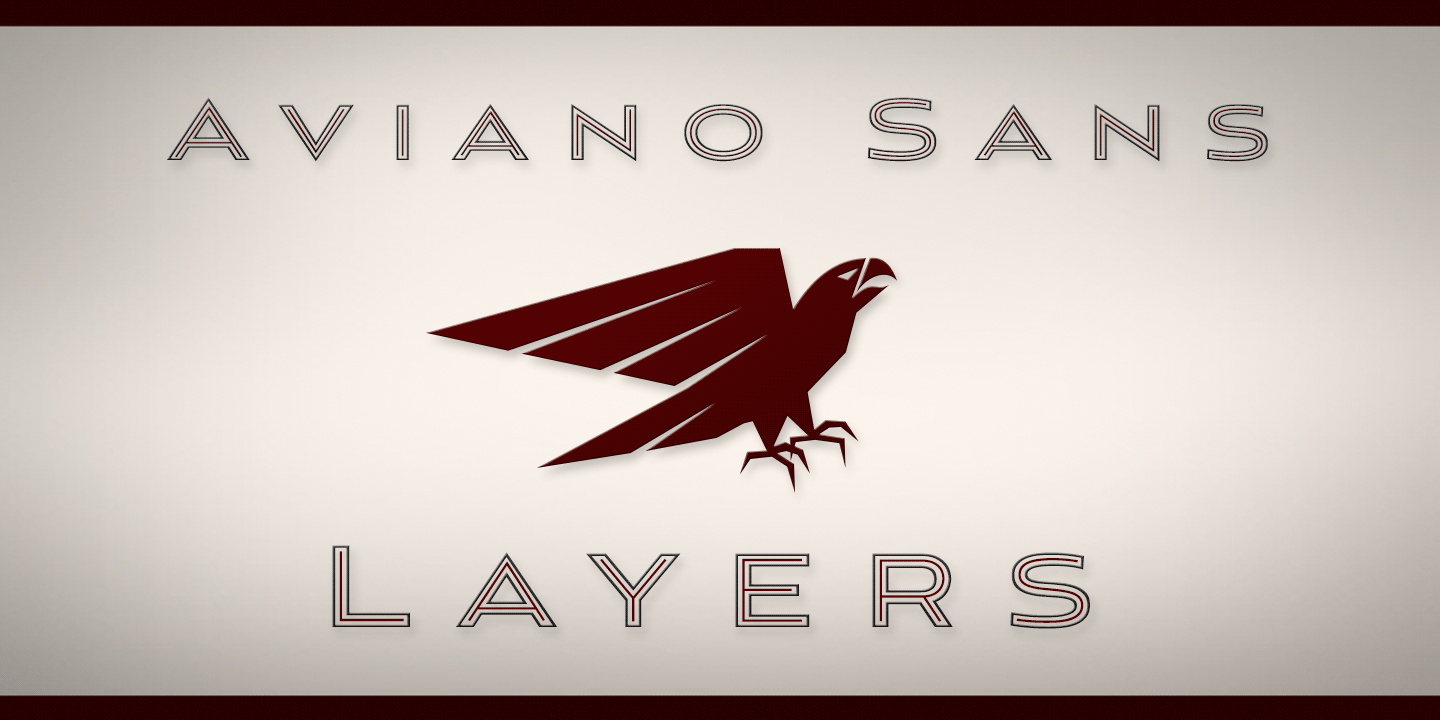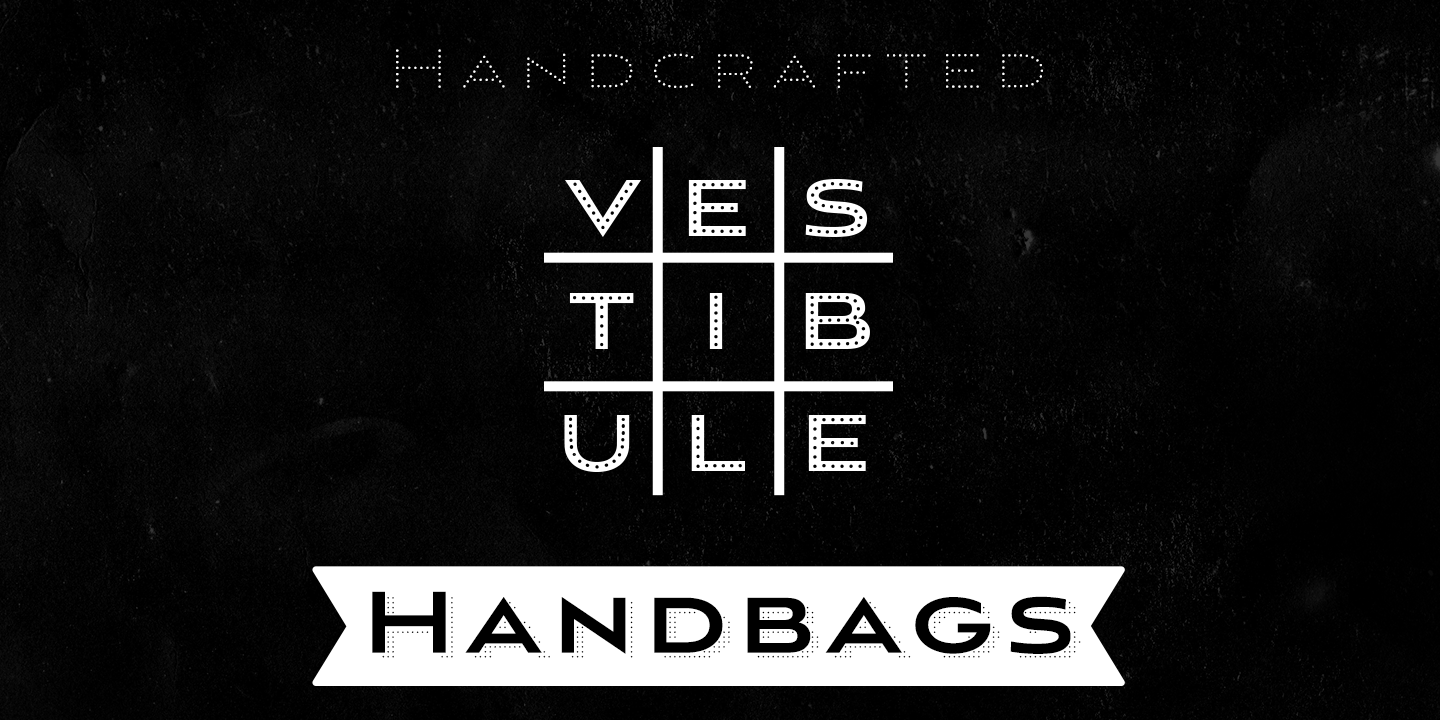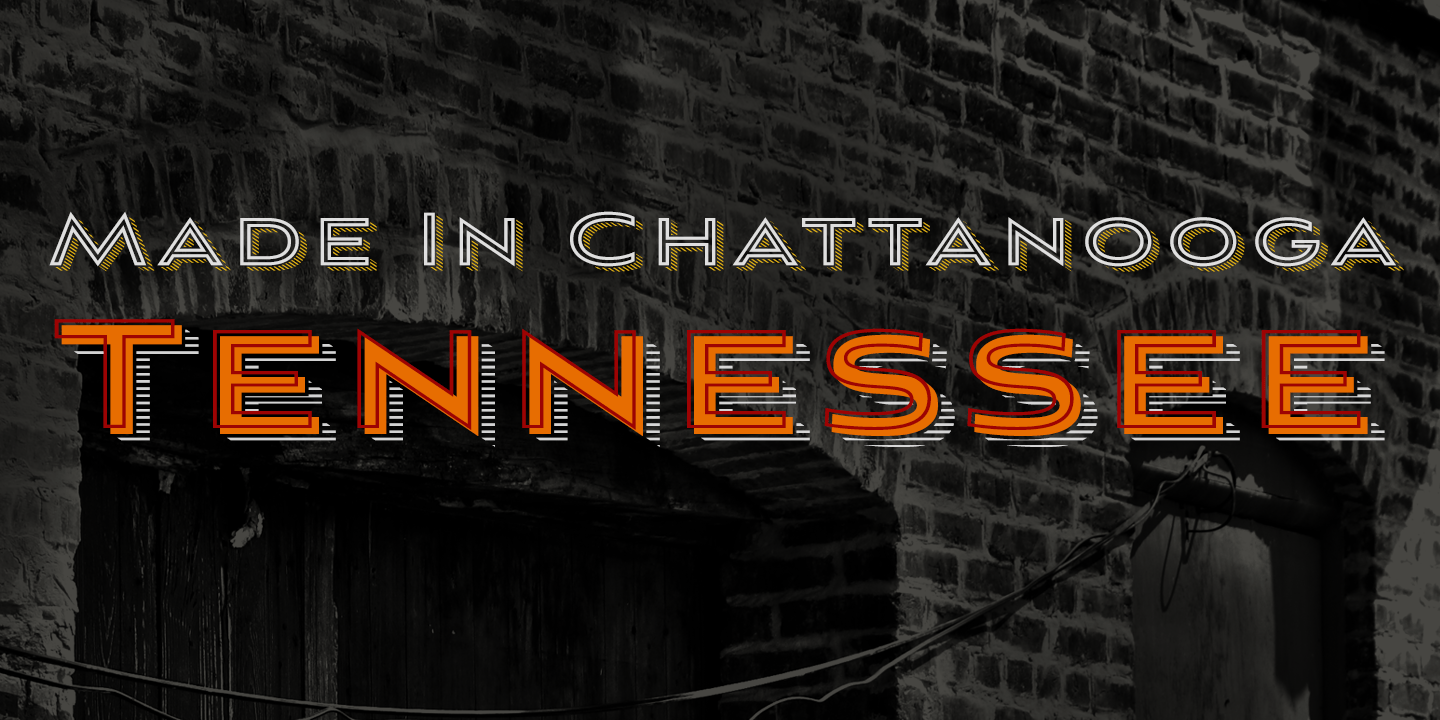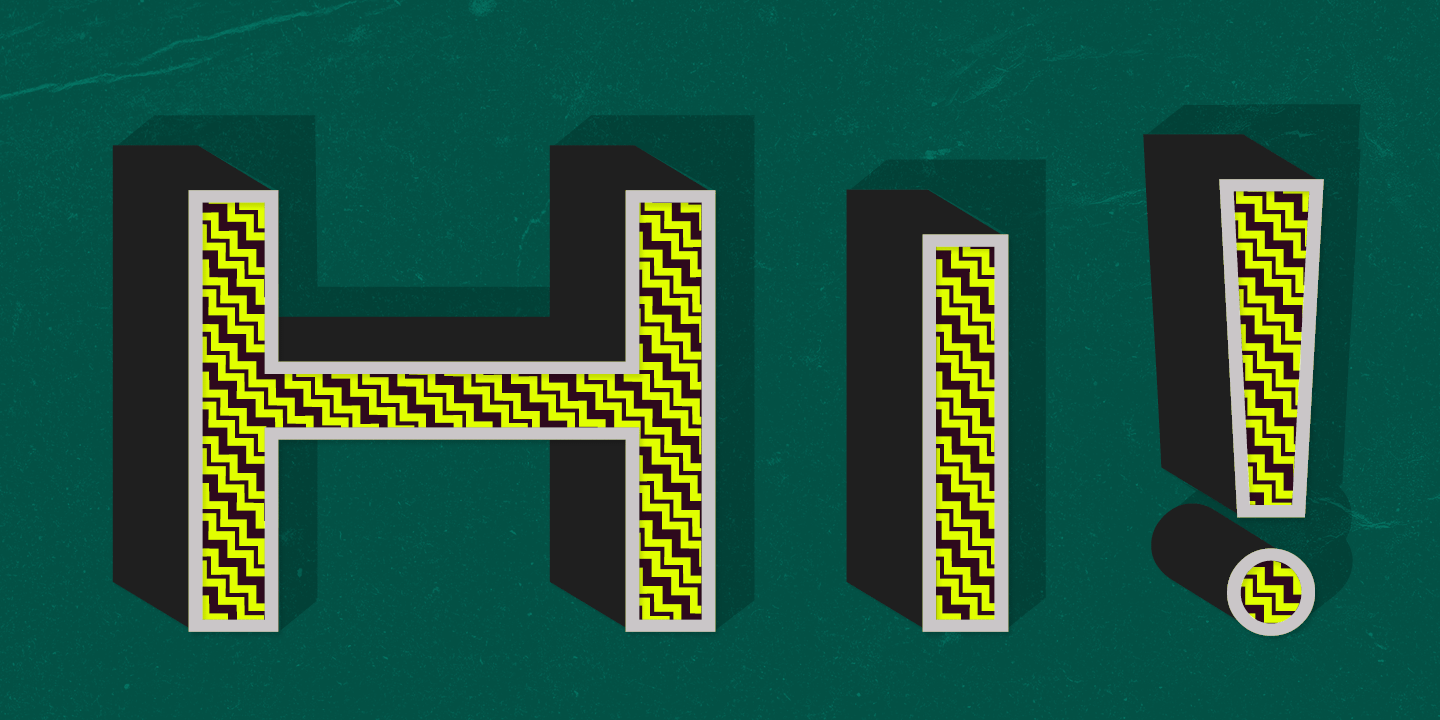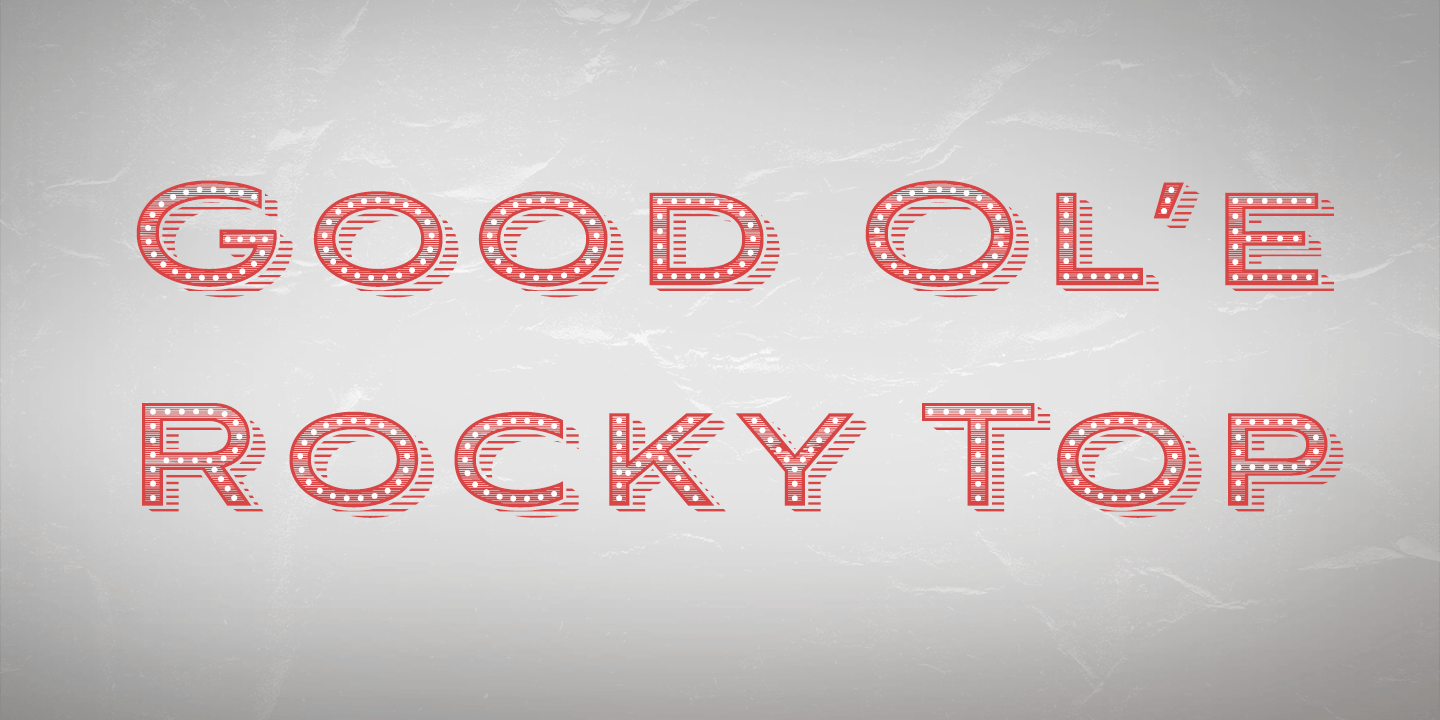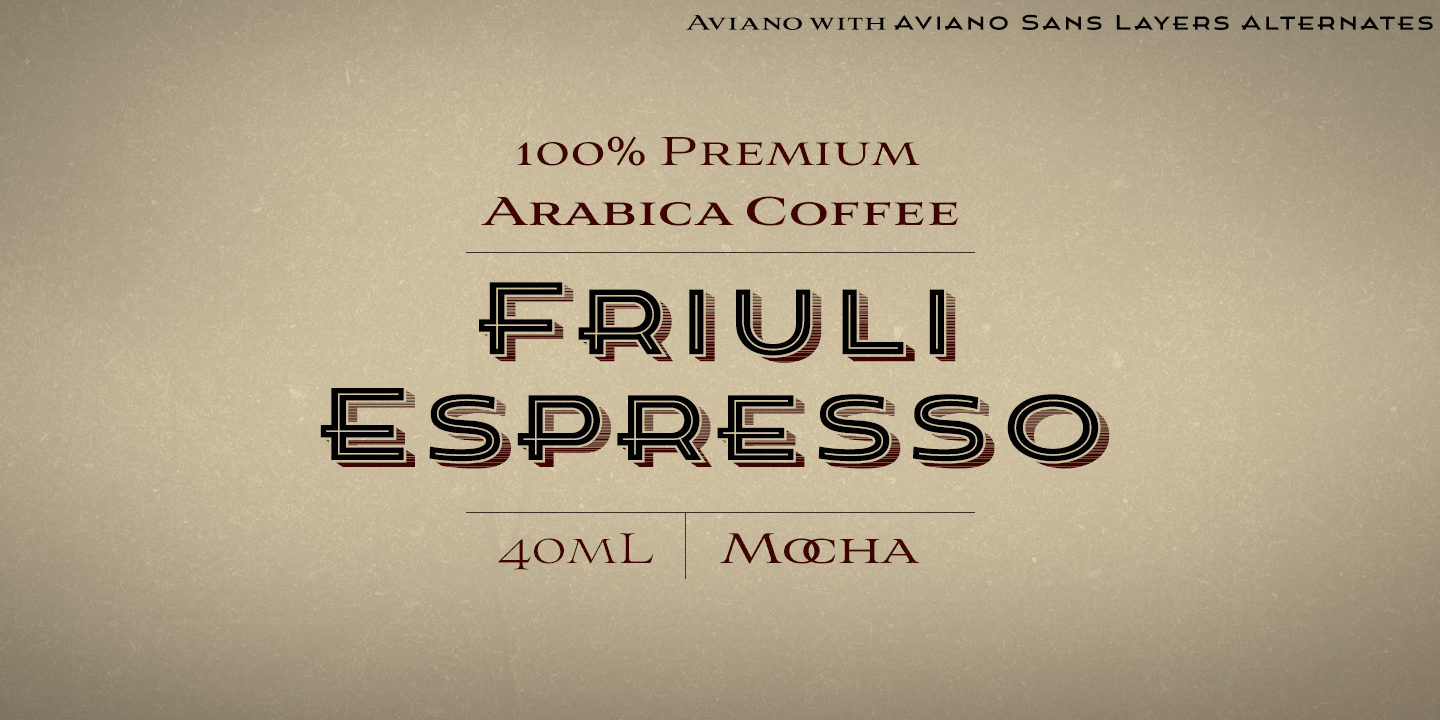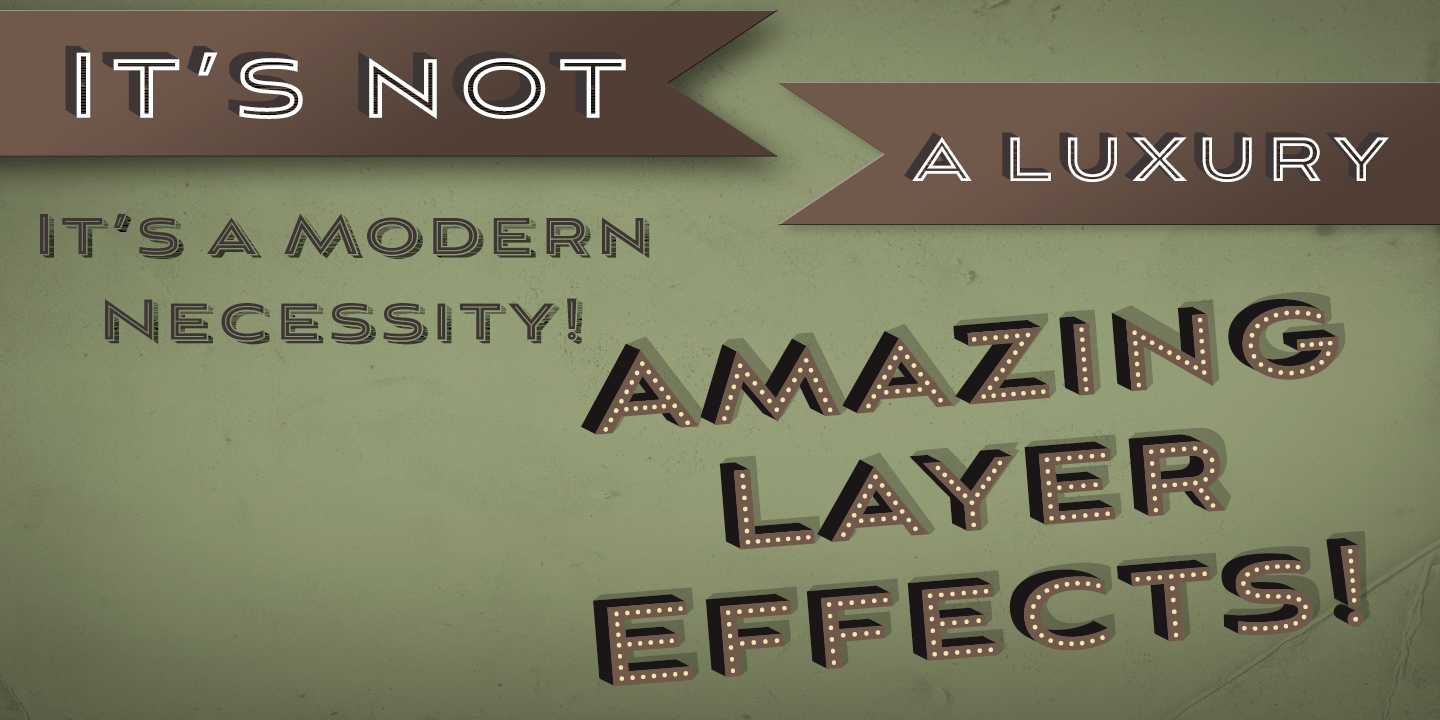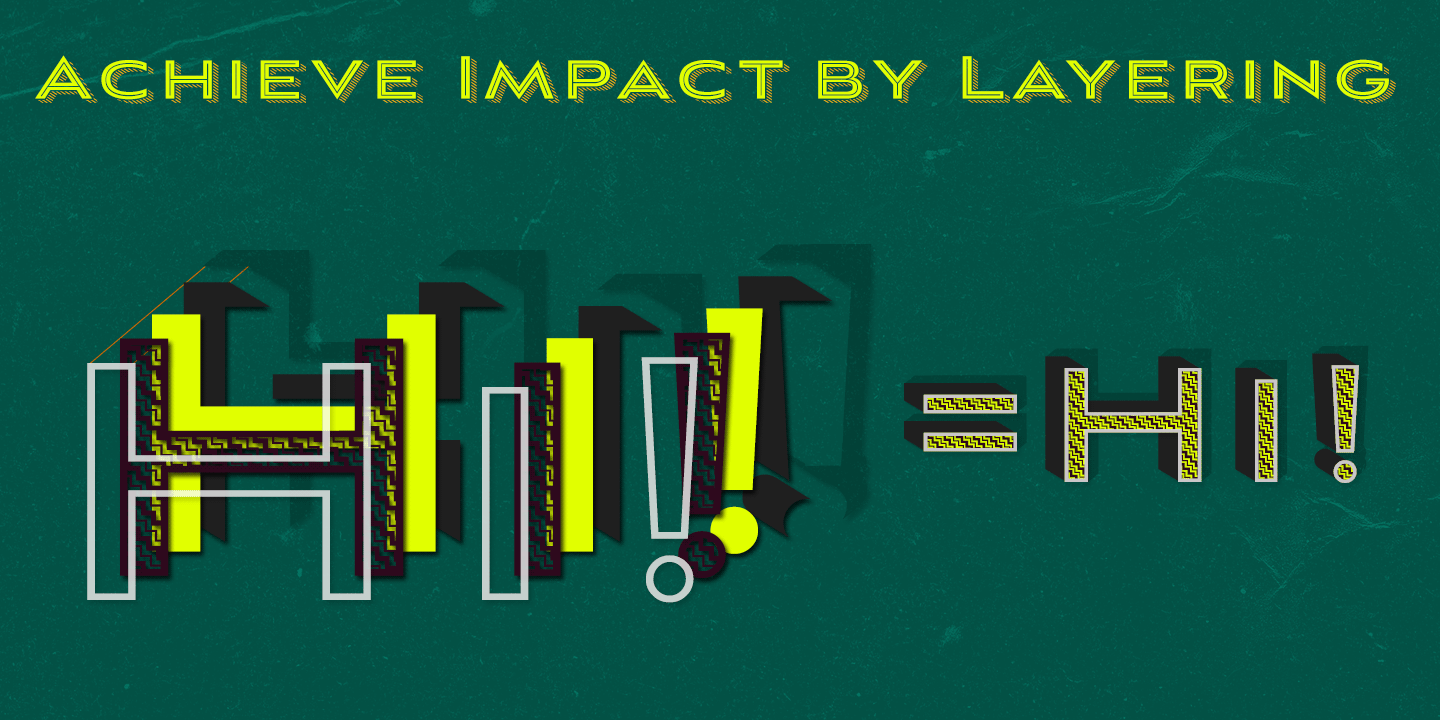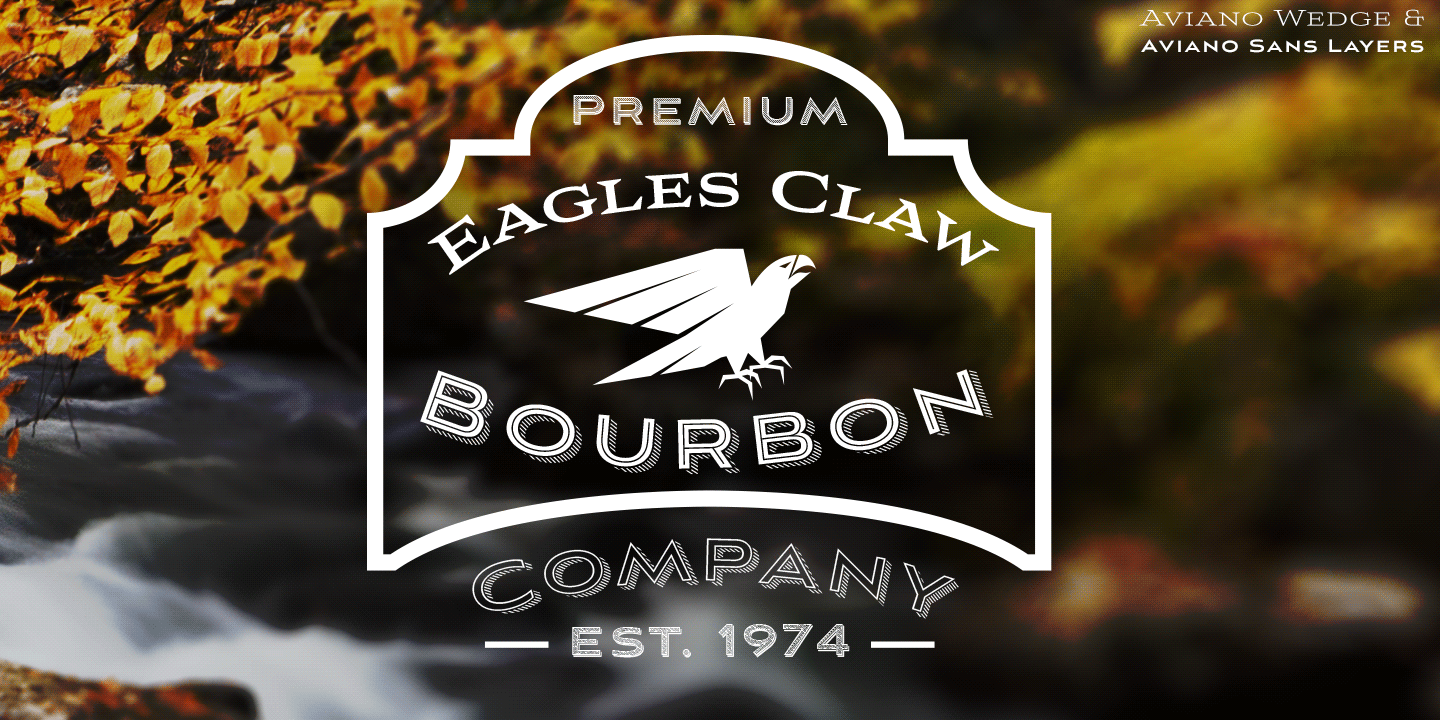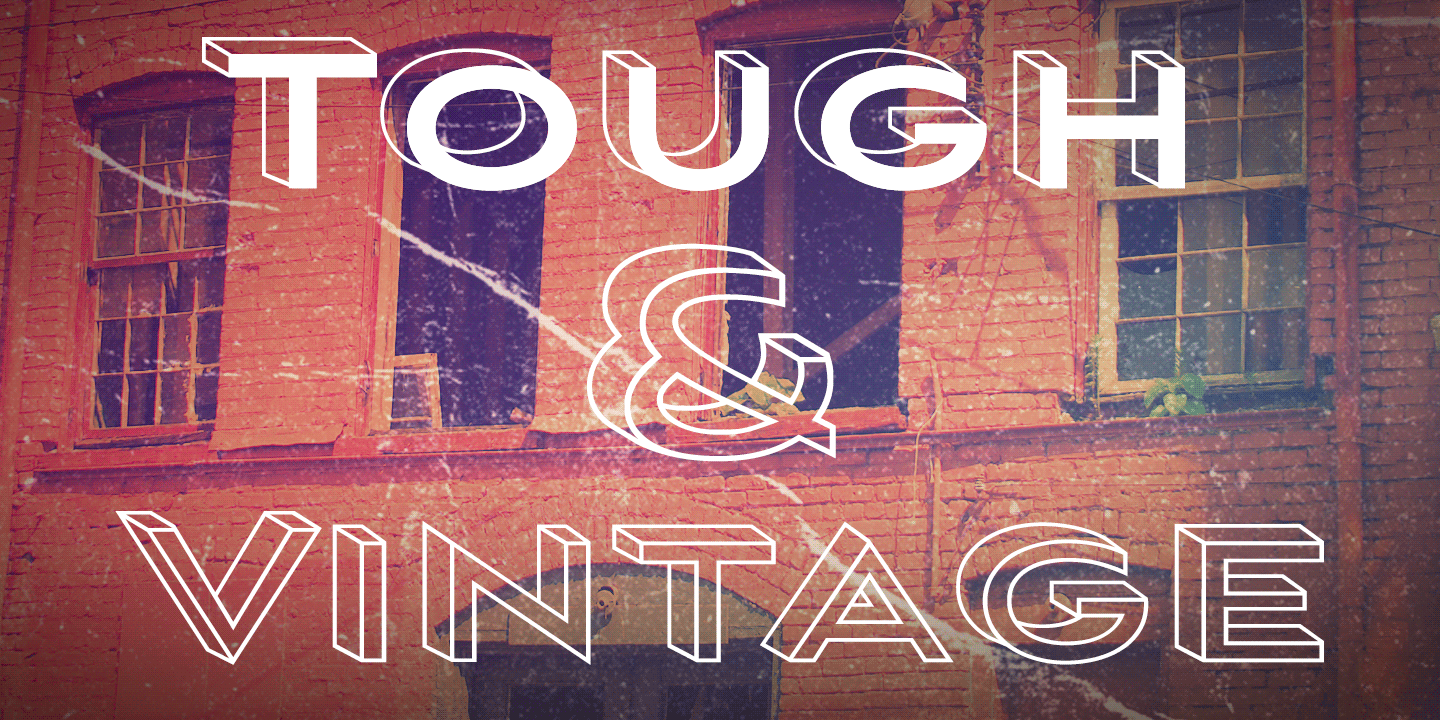
Aviano Sans Layers
Buy NowWith this charismatic new type system, the possibilities are as large as your vision behind them. Achieve the impact you're looking for by layering the different fonts and colorations for a custom, hand-drawn look that likes to be noticed.
Play around with the potential. Create effects such as realistic 3D looks by adding centerlines, dotted centerlines, and shadow variations. Inspired by the affable look of vintage handmade signage, the Aviano Sans Layers spacing accommodates these shadows and other features well with its generous width and helps you hit your message home.
Try mixing it with the other members of the Aviano Hyperfamily, too. There are lots of funky options for you to explore. See what you can create with Aviano Sans Layers!